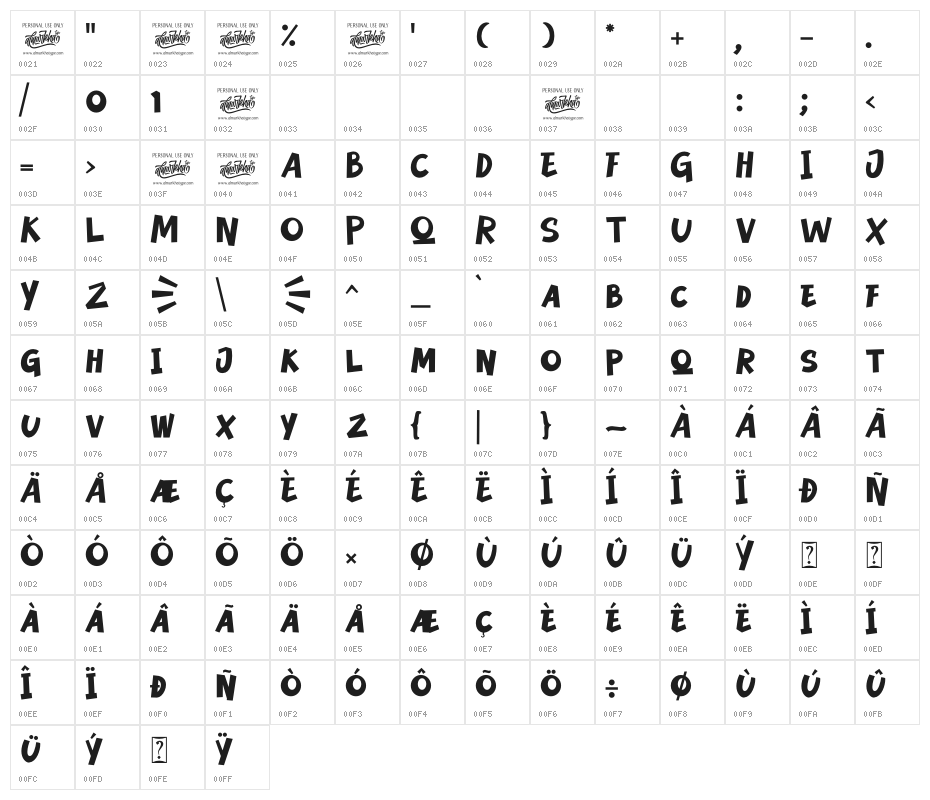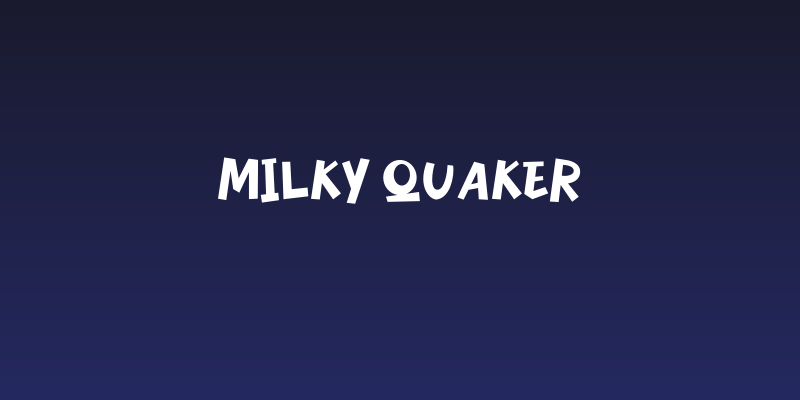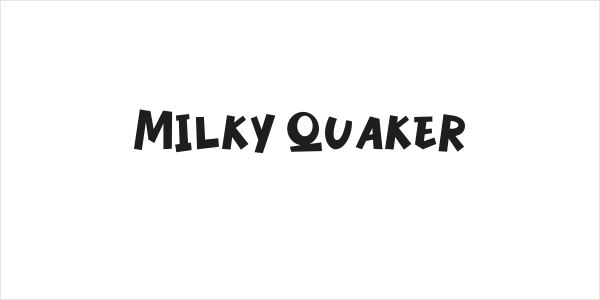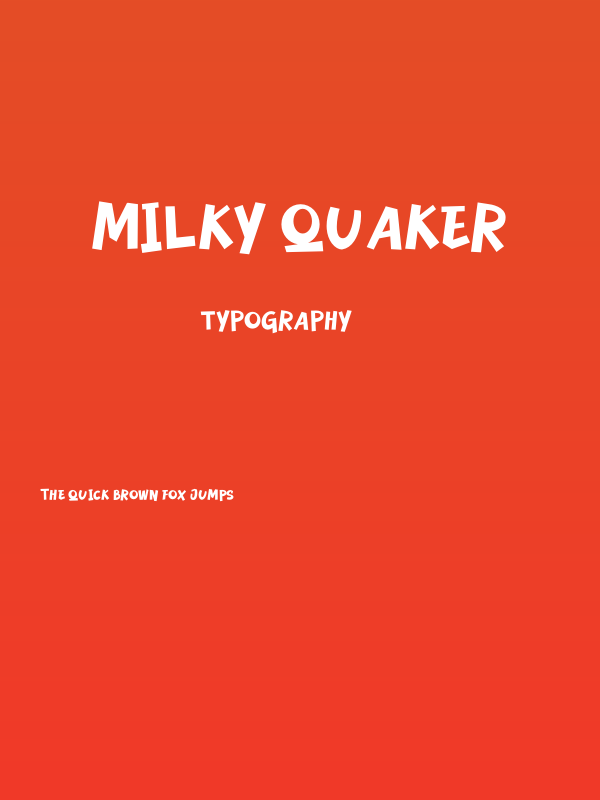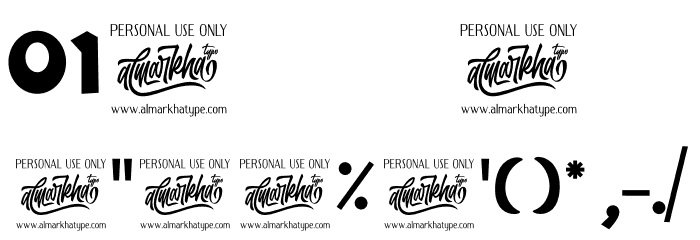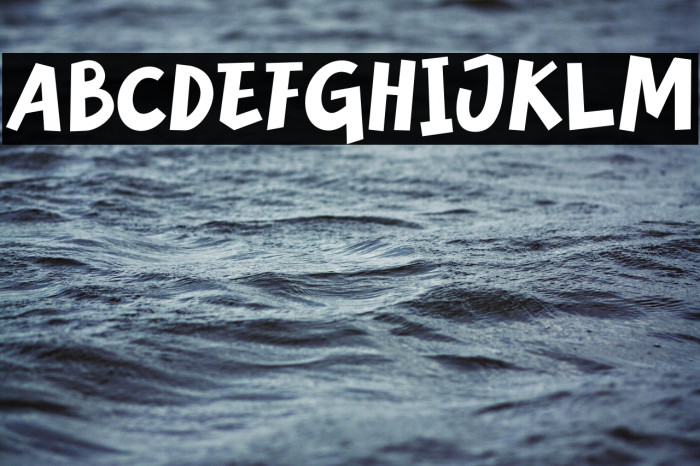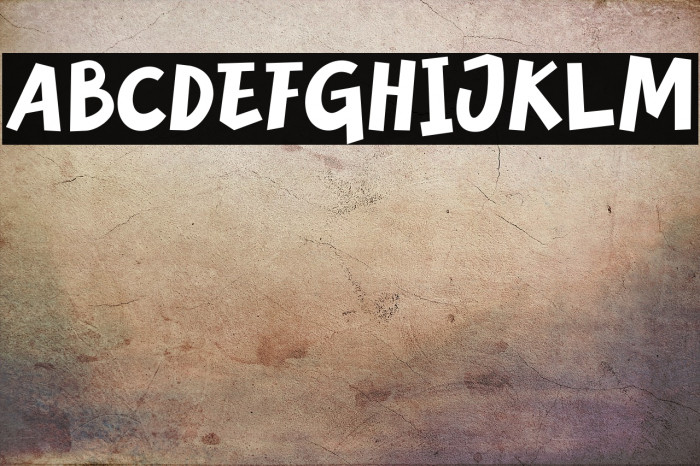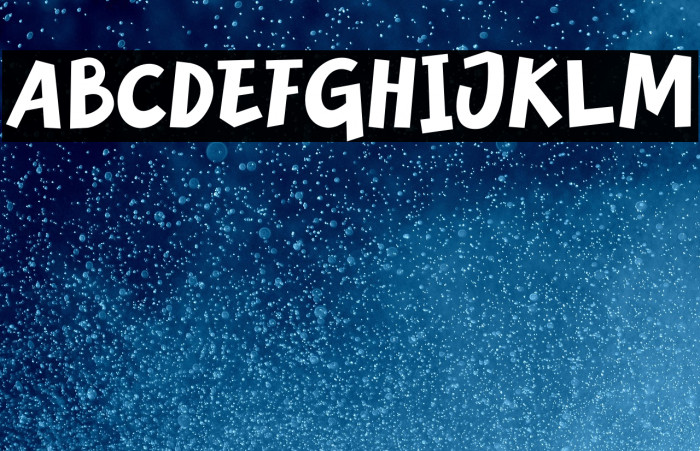
Milky Quaker Font
Milky Quaker Description
This font features a playful and dynamic style with bold, uneven strokes that create a sense of movement and energy. The characters have a hand-drawn feel, with varying angles and curves that add to its whimsical nature. The uppercase letters are particularly striking, with some characters having unique design elements, such as the slanted crossbar on the 'A' and the quirky tail on the 'Q'. The numbers and special characters maintain this lively aesthetic, making the font suitable for creative and informal applications. Its distinctive appearance makes it stand out, ideal for projects that require a fun and engaging typeface.